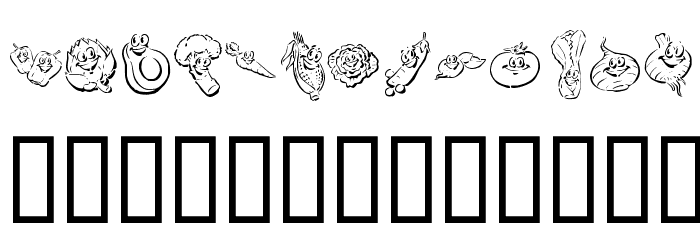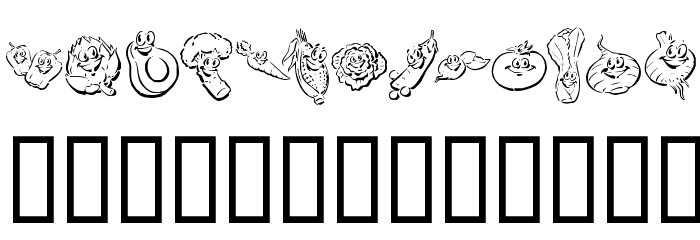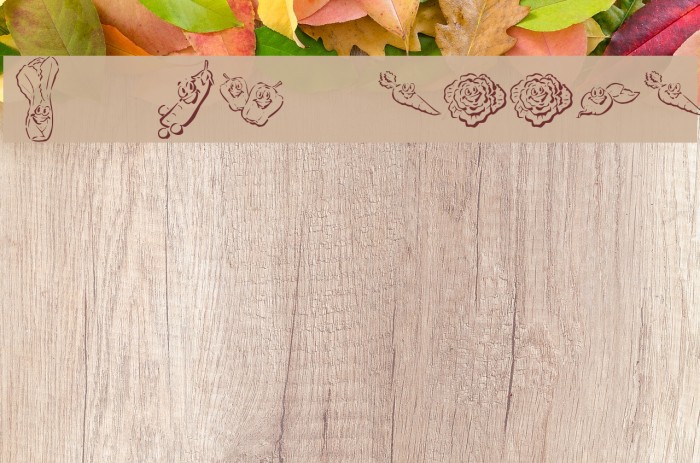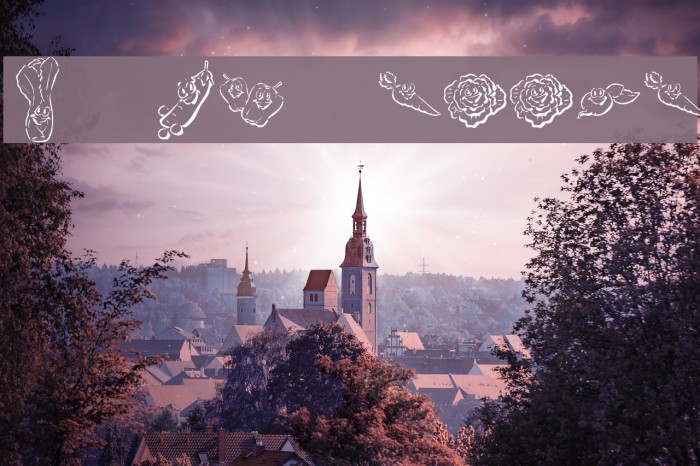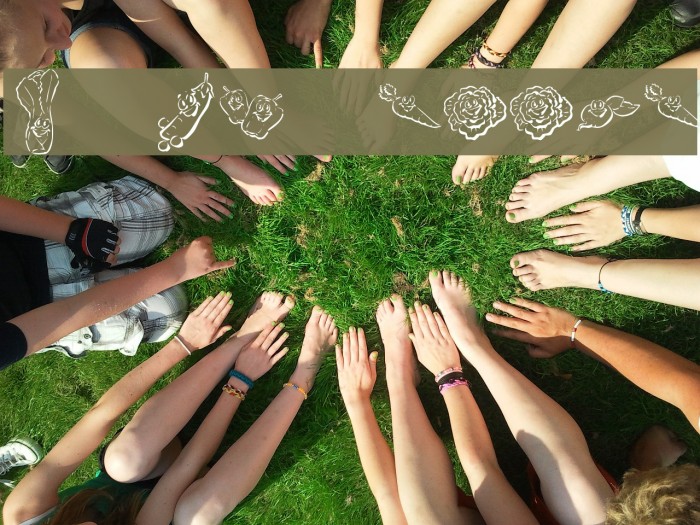
KR Happy Veggies! Font
This is a decorative font featuring playful and whimsical illustrations of various vegetables with expressive faces. Each character is represented by a different vegetable, such as a smiling tomato, a cheerful carrot, and a happy onion, among others. The style is cartoonish and lighthearted, making it ideal for projects that require a fun and engaging visual element. The characters are detailed with expressive features, adding personality and charm to the font.
A playful decorative font with cartoon vegetable illustrations.
- Proposed Projects: Ideal for children's books, educational materials, food-related branding, and playful graphic designs.
- Use Case: Logos, Posters, Children's materials